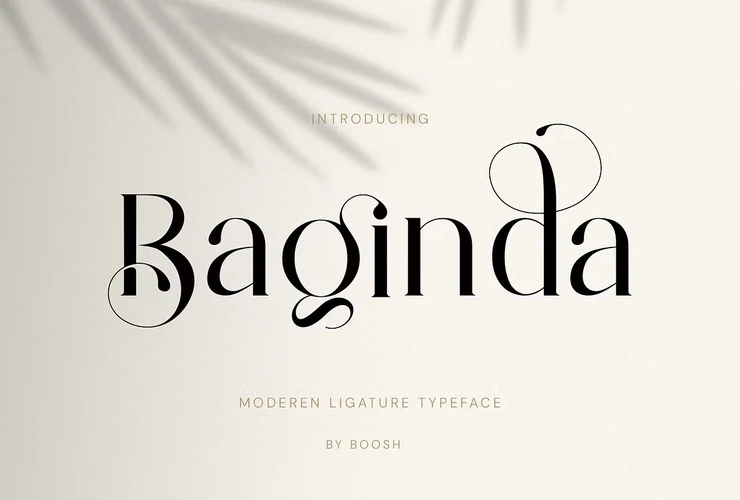
Introducing Baginda: A Modern Ligature Serif Typeface by BOOSH Studio
Discover Baginda, a modern ligature serif typeface by BOOSH Studio. This elegant and stylish font is designed to add a touch of sophistication to any project, making it perfect for invitation card designs, company logos, movie titles, business cards, book titles, brand names, and various other designs.
Key Features of Baginda Typeface
Baginda Serif is crafted to provide designers with a versatile and visually appealing typeface. Here are some of its standout features:
Elegant and Stylish Design: Baginda Serif is balanced, smooth, and elegant, making it suitable for a wide range of design applications.
Comprehensive Character Set: Includes uppercase and lowercase letters, numbering, and punctuation.
Ligatures: Enhance your text with natural and stylish connections.
Baginda Serif is meticulously designed to bring a touch of elegance and style to your projects. Whether you are designing invitation cards, crafting company logos, creating movie titles, or developing brand names, Baginda Serif ensures your designs stand out with sophistication and grace.